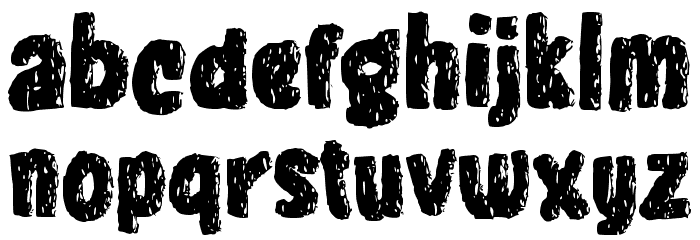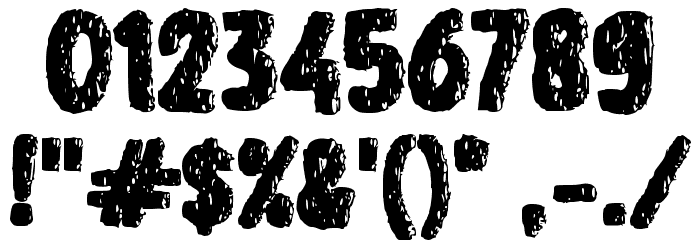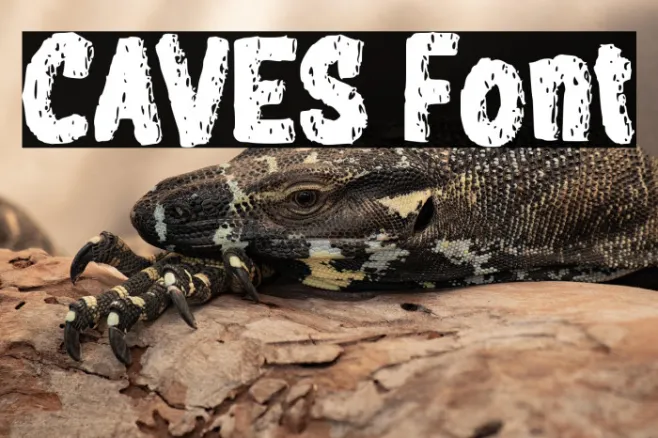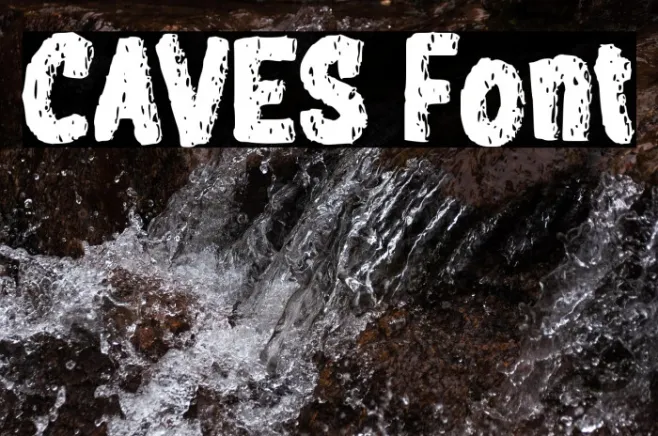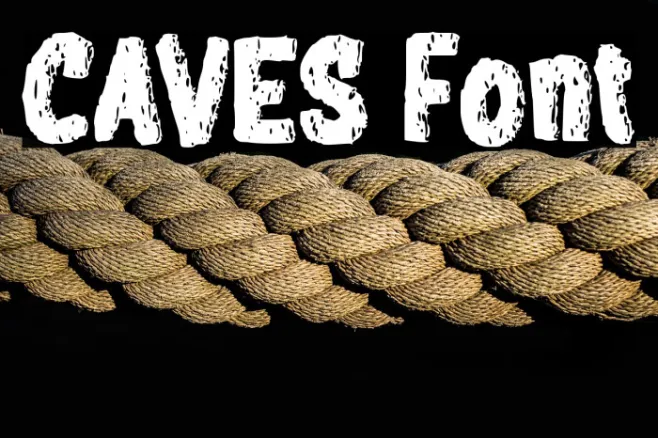
CAVES Font
This font exhibits a rugged, textured appearance reminiscent of natural cave formations. The characters are bold and heavily distressed, with uneven edges that give them a hand-carved look. The uppercase and lowercase letters maintain a consistent style, with a slightly playful yet robust feel. Numbers and special characters follow the same aesthetic, ensuring uniformity across all glyphs. The font's unique texture makes it stand out, ideal for projects that require a strong, organic presence. Its boldness and distinctive style make it suitable for attention-grabbing designs.
A bold, textured font with a rugged, hand-carved appearance.
- Proposed Projects: Ideal for posters, logos, outdoor adventure branding, and themed event materials.